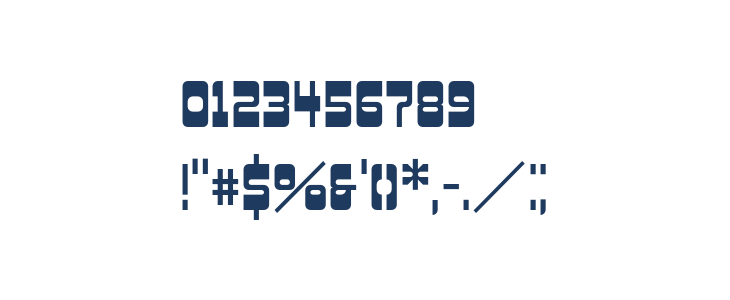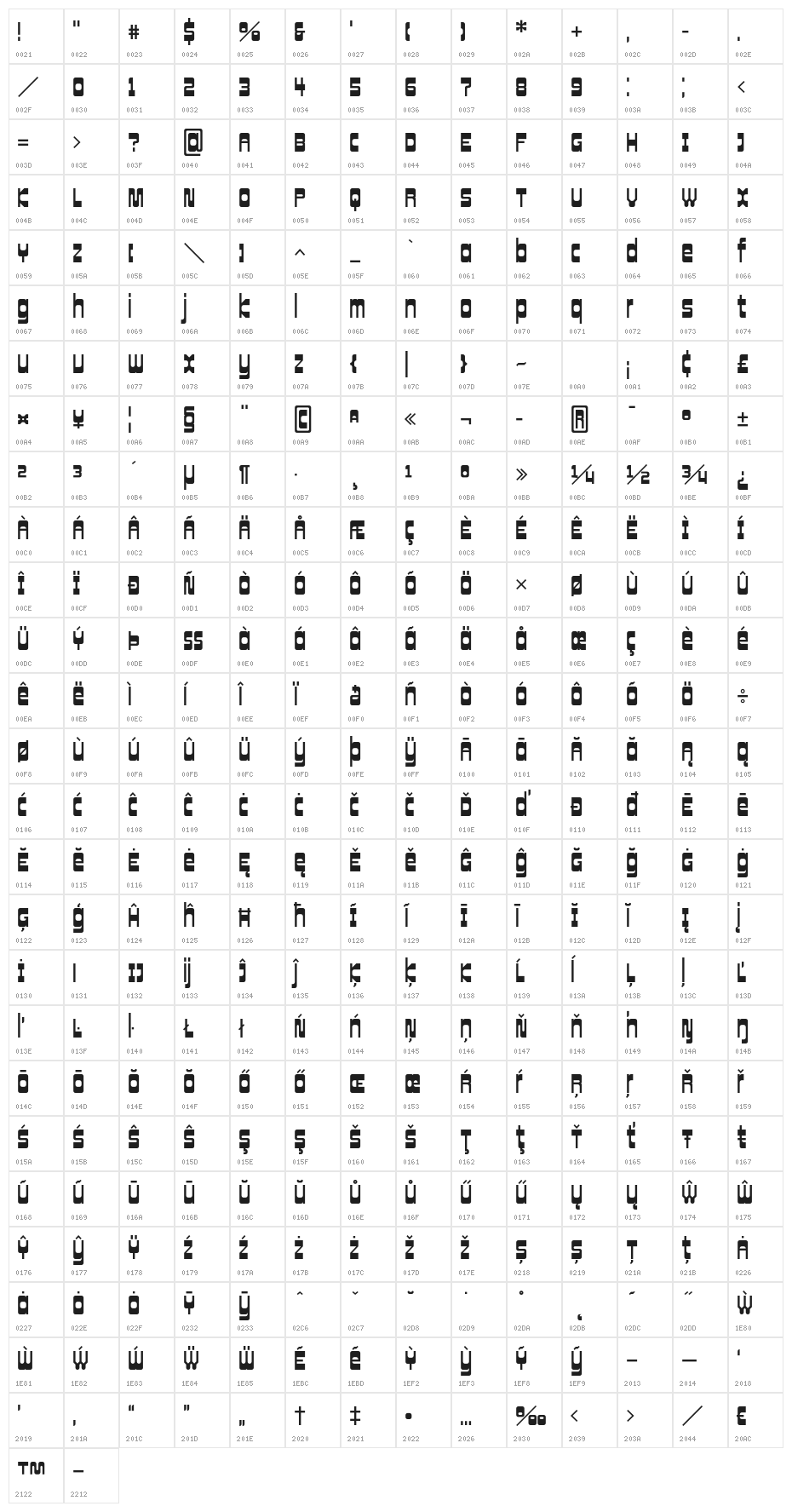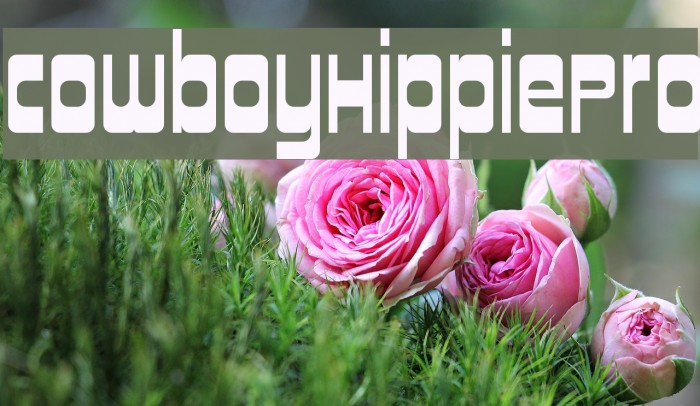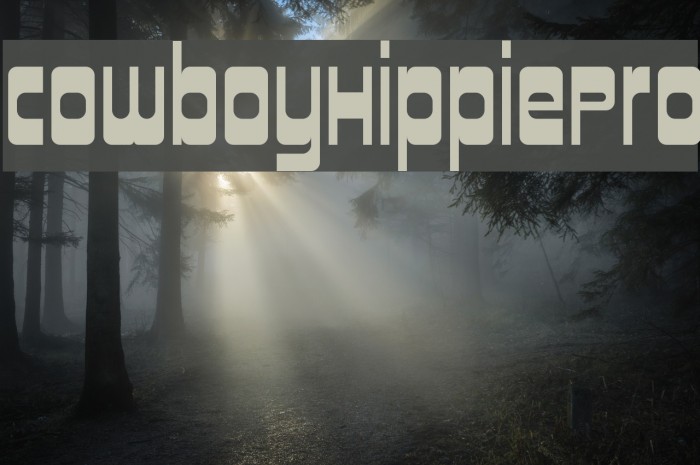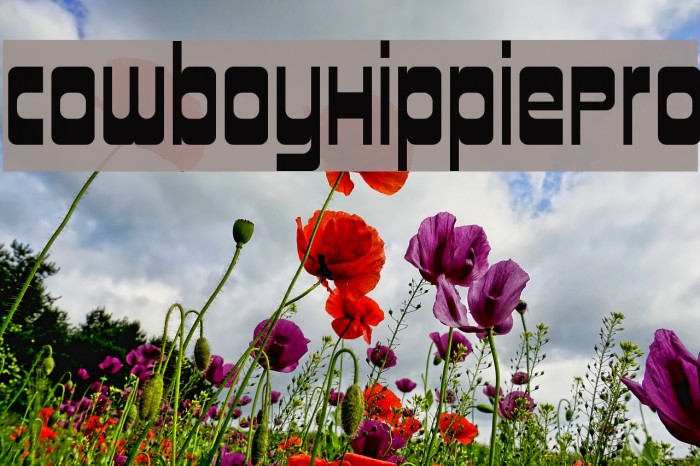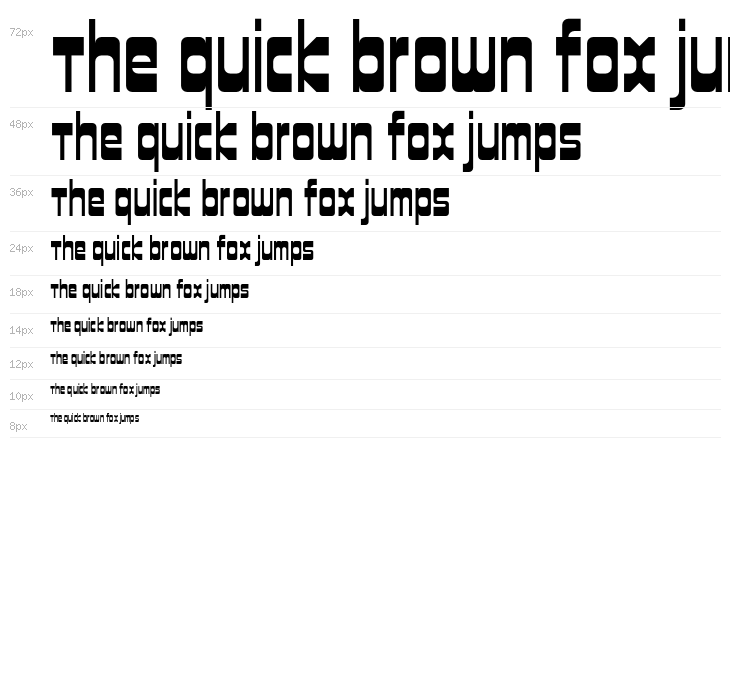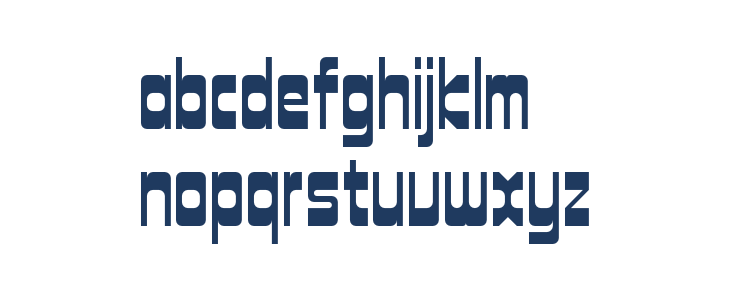
CowboyHippiePro Font
CowboyHippiePro Description
This font exhibits a bold and robust style, characterized by its thick, block-like letters that convey a sense of strength and stability. The uppercase and lowercase letters maintain a consistent width, giving the font a uniform appearance. The geometric shapes and sharp angles create a modern and edgy look, while the rounded edges soften the overall feel, adding a touch of approachability. The numbers and special characters follow the same design principles, ensuring cohesion across all elements. This font's unique style makes it stand out, making it suitable for projects that require a strong visual impact.